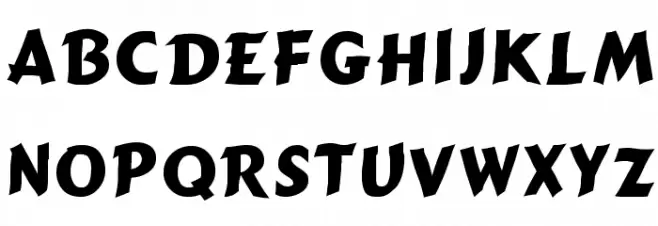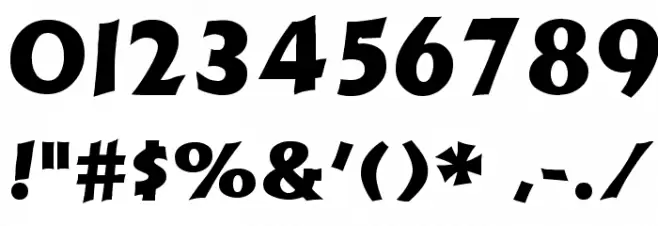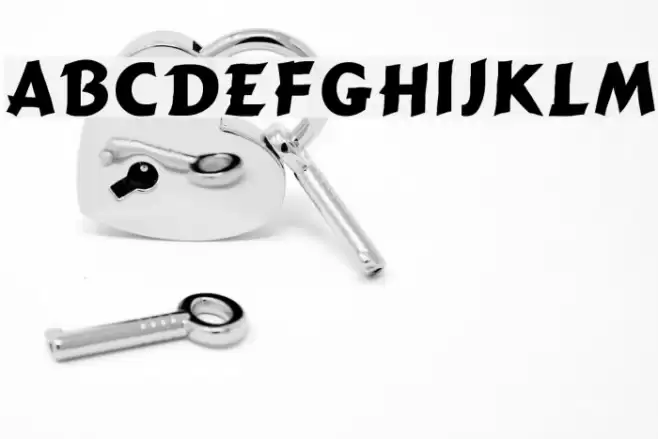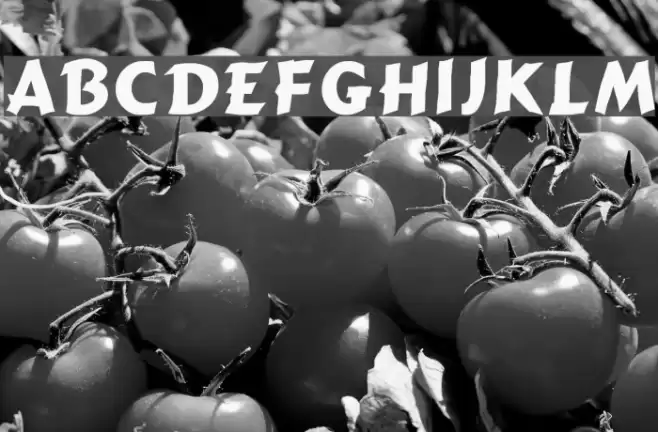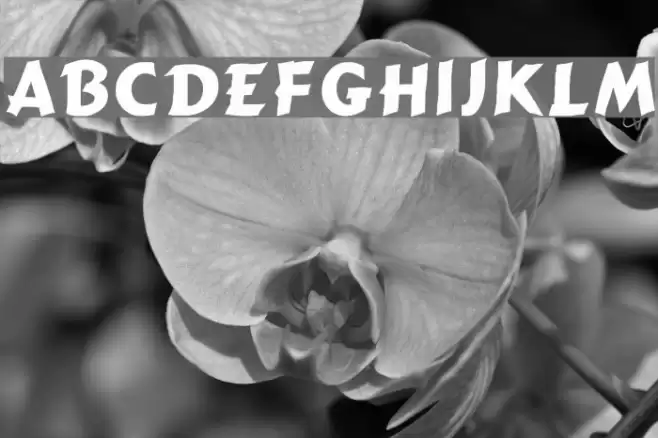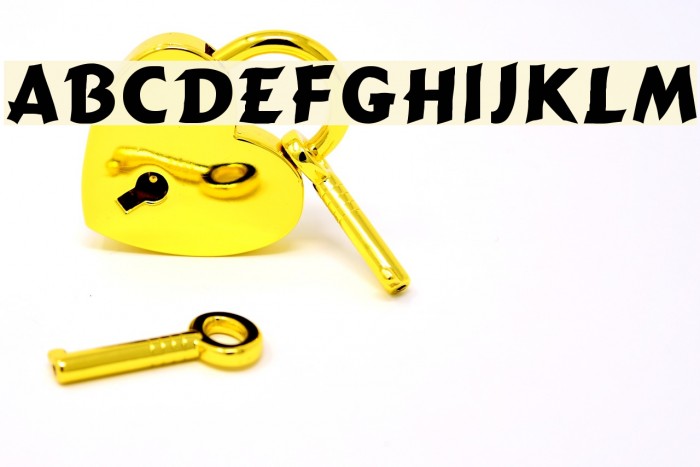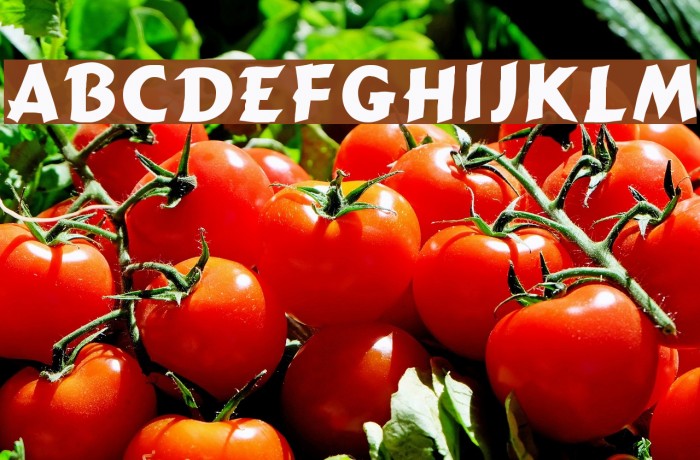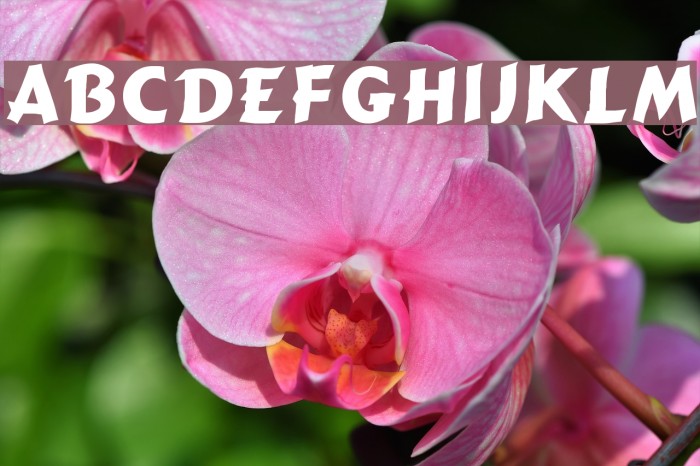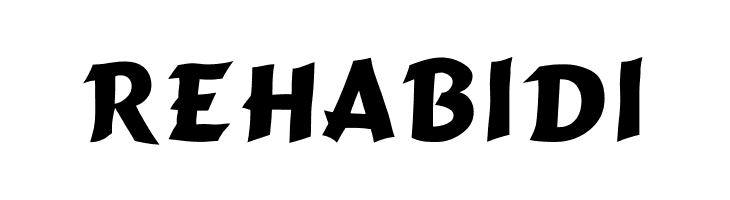
Cartoon Bold
This font features a playful and bold style, characterized by its thick, exaggerated strokes and whimsical design. The letters have a cartoonish flair, with uneven lines and a sense of movement that adds a dynamic quality. The uppercase and lowercase characters maintain a consistent boldness, making them stand out prominently. Numbers and special characters follow the same playful aesthetic, ensuring a cohesive look across all text elements. The font's unique style makes it ideal for projects that require a fun and engaging visual impact.
A bold, playful font with a cartoonish style and dynamic strokes.
- Proposed Projects: Ideal for children's books, comic strips, playful branding, and eye-catching posters.
- Overall Style: Playful
- Use Case: Headlines, Logos, Posters